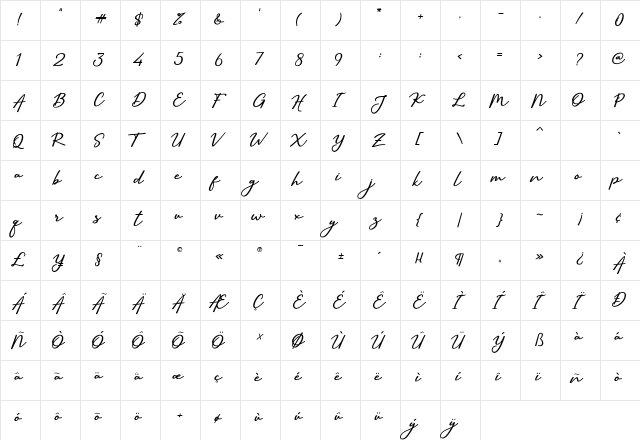
Sallim Signature Regular
| Foundry | Wandani Creative |
| Designer | Rizaldi Wandani |
Sallim Signature takes a measured approach to typography — its balanced proportions and neutral character make it a reliable workhorse for both digital and print work.